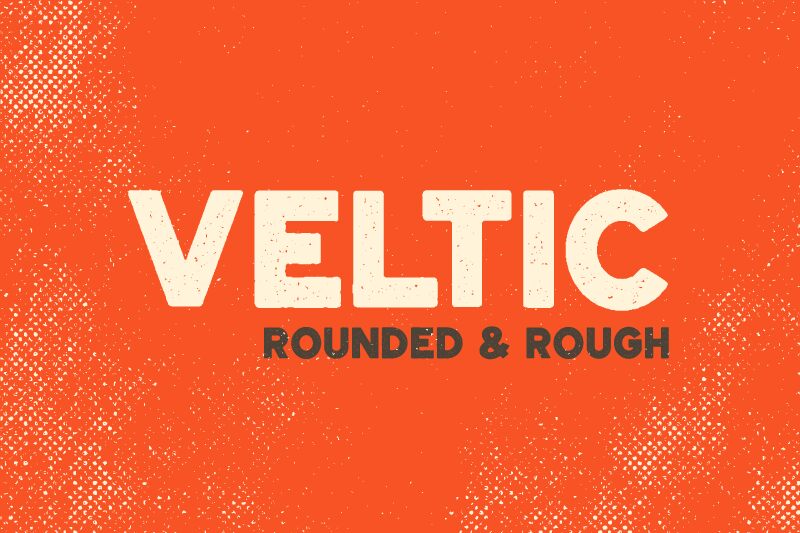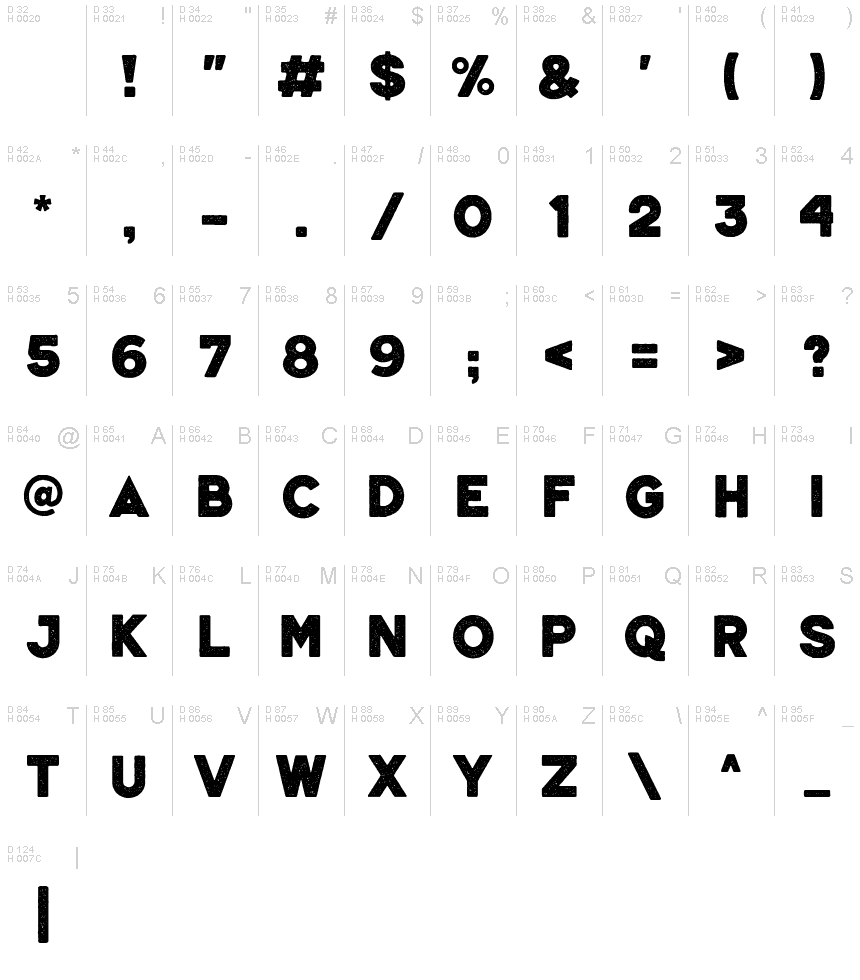
VELTIC
Veltic is a new geometric sans font. It includes a strong semi-thick weight with uneven edges and a rough stamp of ink style.
Its suitable for headers, branding, posters, packaging, titles and logos.